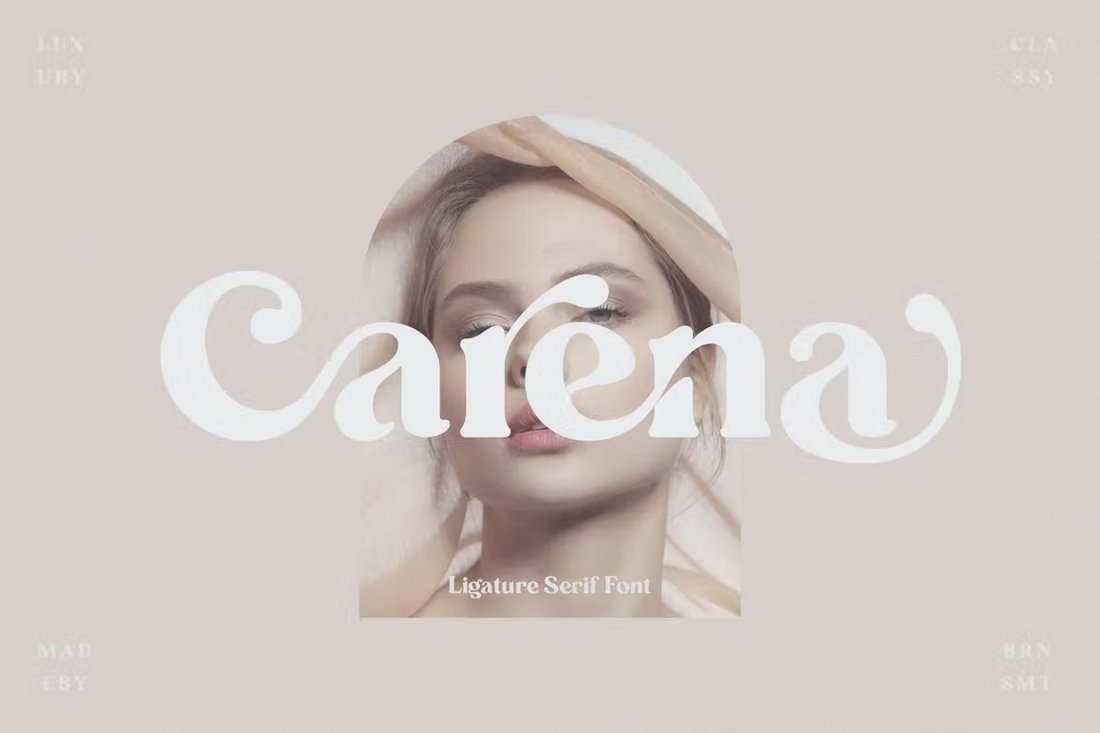
25+ Modern, Elegant Fonts with Classy Designs
Giving a classy and elegant look to your modern designs is not that difficult. You just need to find the right elegant font for the project.
There are actually thousands and thousands of fonts available today across multiple marketplaces and websites. With so many choices, it could take hours to find the perfect font. So how do you find the best elegant fonts with modern designs?
Well, you can start by exploring our handpicked collection below. For this list, we gathered some of the best classy fonts that are suitable for all kinds of print and digital designs.
Chelon – Classy Serif Font
There are some fonts out there that can handle many different types of designs, from logos to product packaging and more. Chelon is one of those rare elegant fonts that features a beautiful design. It’s perfect for classy logo designs, luxury branding designs, website designs, and so much more.
Hagona – Elegant Serif Font
This font comes with the same elegant letter design you’d normally see in high-end fashion and lifestyle brands. This makes it a great choice for crafting branding designs for apparel businesses, packaging designs for fashion products, and labels for beauty brands. The font includes many stylistic elements and over 250 glyphs.
Mighty Wings – Elegant Display Serif Font
When using a great-looking font, you can surround your entire design around its typography. With this elegant font, you can create such incredible designs for various types of projects. It’s especially suitable for classy website headers, luxury logo designs, and product labels. The font comes bundled with alternate characters and ligatures as well.
Mialgor – Luxury Classy Font
You can use this font to design unique logo and branding designs as it comes with a set of creative ligatures and glyphs. They are perfect for crafting monogram logos, signage, and packaging designs, especially for luxury and lifestyle brands. It also features uppercase and lowercase letters with multilingual support.
Giveny – Classy Serif Font
The clean-cut look of the letters gives this font a very professional feel. This makes it a great choice for designing everything from branding designs to logos and product labels for luxury, fashion, and corporate brands. The font includes all-caps letters so it’s ideal for bold title designs. And it comes with ligatures and an italic version as well.
Kagnue – Free Modern Classy Serif Font
This beautiful and classy serif font is free to download. And you can use it freely with your personal projects. It comes with a set of elegant letters with a unique style of its own. It’s especially great for title designs.
Cotta – Free Elegant Serif Font
Cotta is another elegant font you can use to design stylish typography for websites, logos, and more. You can download and use this font for free with personal and commercial projects. It has lots of alternates and ligatures.
Kakuro – Classy Elegant Font
Kakuro is a classy font that features a stylish and trendy letter design. It will fit in perfectly with many modern lifestyle and fashion branding designs. The font includes both uppercase and lowercase letters with all basic symbols and numbers.
Kingdom – Elegant Stylish Serif Font
An elegant and beautiful font with a classic lettering design. This font gives off a unique and iconic look that will make your logo and branding designs stand out from the crowd. It comes in 4 different weights with uppercase and lowercase letters.
Karatone – Unique Elegant Font
Working on a logo design for a beauty brand? Or crafting a product label for an apparel brand? Then this font will help you design the perfect look for your project. It comes with a set of classy characters and a whole bunch of stylistic alternates.
Leighton – Classy Serif Font
This elegant and classy font will surely add a bold new look to your logo and branding designs. It features a clean letter design with long serifs to add an extra curvy look to its letters. The font is great for all kinds of print and digital design projects.
Vows – Elegant Serif Font
When you first look at this font, you’ll immediately think of the typography used in Vogue magazine design. It features the same style of letters mixed with its own modern spin on each letter. The font actually comes with over 200 characters, including alternates and ligatures.
Sinerva – Free Elegant Font
Sinerva is a modern font with a selection of elegant letters. Each letter in this font has a unique design that gives a personality to your typography designs. The font is free to use with your personal projects.
Milden – Free Classy Serif Font
This font is also free to use with personal projects. It features fancy letters with curvy serifs for adding a bit of extra beauty to your lifestyle and fashion branding designs. The font has uppercase and lowercase letters.
Ragista – Elegant Display Sans Serif Font
Ragista is a stylish sans serif font with a classy look and feel. You can use this font to design beautiful logos for fashion brands as well as product labels and packaging designs. It includes ligatures, glyphs, and alternate characters too.
Charivist – Trendy Elegant Font
If you’re looking for an elegant font with a modern-vintage design, this font is a great place to start. It includes a complete set of beautiful characters with ligatures, alternates, and multilingual support. The font is most suitable for packaging and label designs.
Classy Marisa – Stylish Elegant Font
Just as the name suggests, this font also comes with a very classy and elegant look. It features all-caps letters and the font comes in 4 different weights ranging from light to bold. It’s simply perfect for logo and signage design.
Bruney – Classy Ligature Font
If you’re looking for a classy font to craft stylish monogram logos, this font is made just for you. This is a ligature font that comes with a set of characters that can be combined to create unique logo designs of your own.
Romantic – Modern Beauty Sans Serif Font
A clean and narrow sans serif font for designing titles, logos, and website headers. This font is especially suitable for feminine designs, including wedding invitations, beauty product labels, and packaging designs. It includes uppercase and lowercase letters.
Wavy – Free Futuristic Display Font
Wavy is a unique display font that comes with a modern and futuristic look. It’s perfect for crafting titles for technology-themed posters, banners, social media posts, and more. The font is free to use with commercial projects.
Aesthico – Free Modern Elegant Font
Featuring a beautiful aesthetic feel, this font comes with a set of stylish uppercase and lowercase to help you craft creative typography designs. It’s great for logo and packaging designs. The font is free for personal use.
Kattelyn – Vintage Elegant Font
This font comes with an elegant letter design inspired by vintage typography. It’s great for giving a classic look to your fashion and lifestyle branding designs, as well as many other types of luxury and high-end designs.
Menorca – Modern Elegant Font
Menorca is a modern font with a set of classy characters. It includes uppercase and lowercase letters that will instantly give an attractive look to various types of designs. It’s perfect for website headers, book covers, logo designs, and much more.
Carena – Classy Ligature Serif Font
Another stylish ligature font featuring a collection of beautiful characters. You can use this font to craft unique monogram logos and various other designs by combining its letters together. The font comes with both uppercase and lowercase letters as well.
Cannia – Elegant Ligature Font
This clean and elegant font is designed for crafting logo and badge designs. It’s another ligature font with a set of unique characters that allow you to craft monogram-style designs. Of course, you can also use it to design various other typography as well.
Bligra – Modern Serif Font
You can use this modern serif font to craft elegant logos, website headers, signage, and much more. It’s perfect for magazines and social media designs as well. The font also includes web font versions.
Cabinest – Contrast Sans Serif Font
The stylish and curvy letters give a beautiful and authentic look to this font. It will surely help make your typography designs look unique and original. The font features both uppercase and lowercase letters.